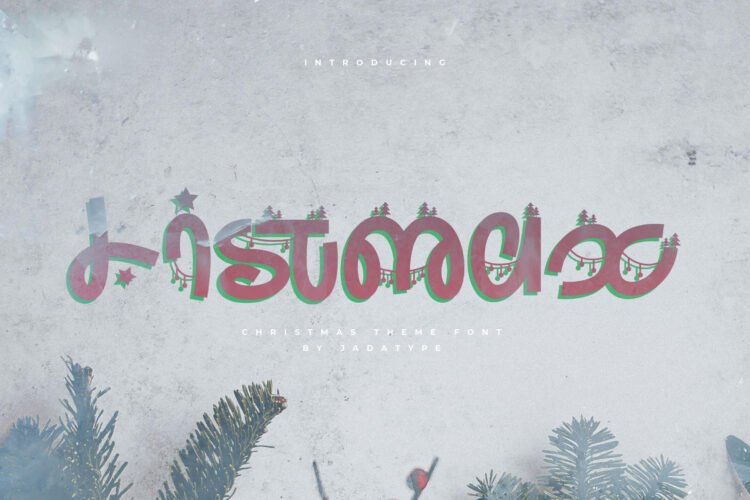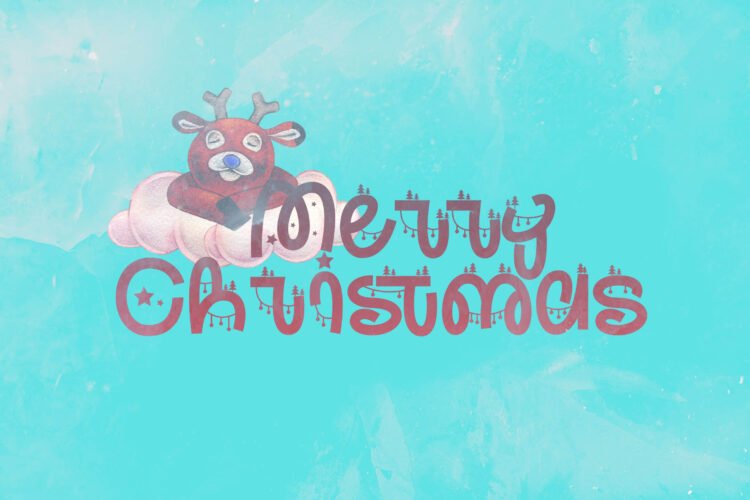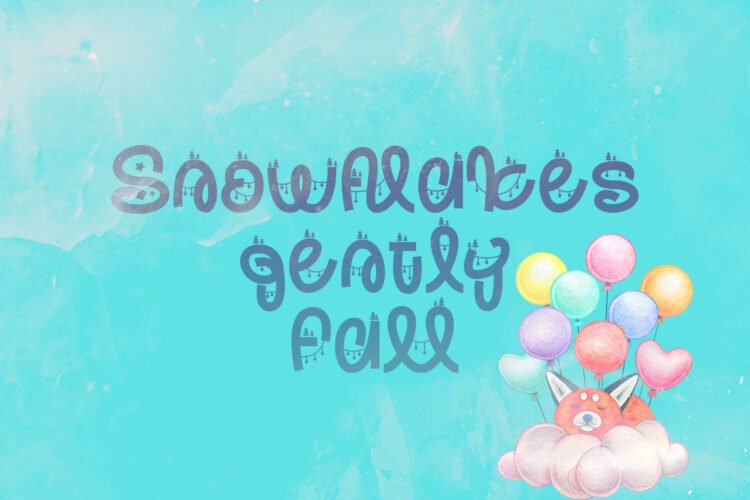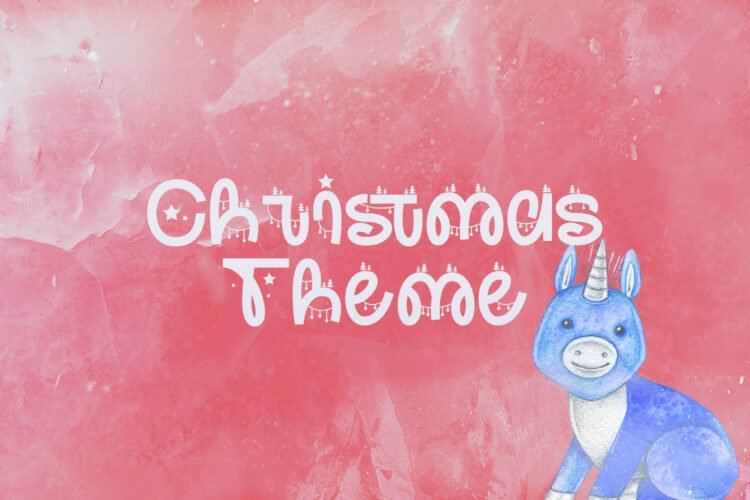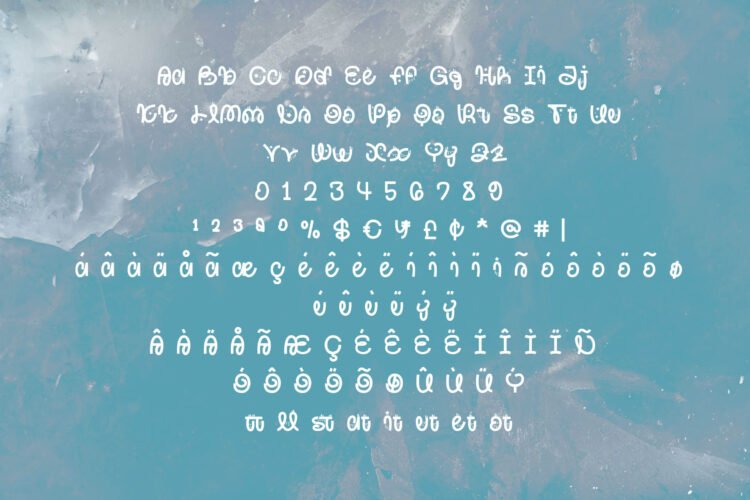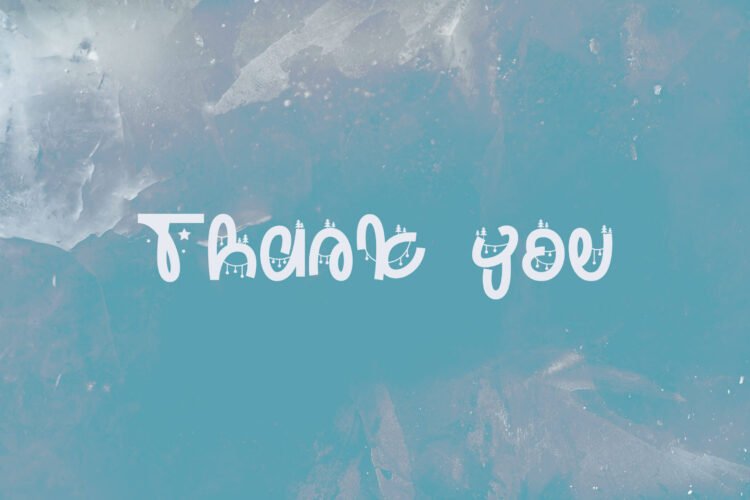
listmax display christmas font
Listmax is a display font that comes with a christmas theme. suitable for tshirt, branding, social media, and so on. contains standard English letters, numbers, punctuation, and several accents that support multilingualism.
Listmax – Display Fun Font